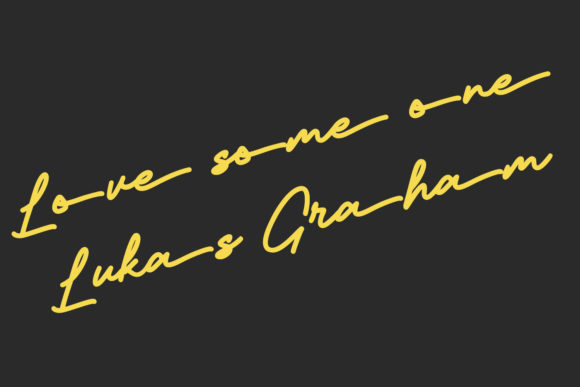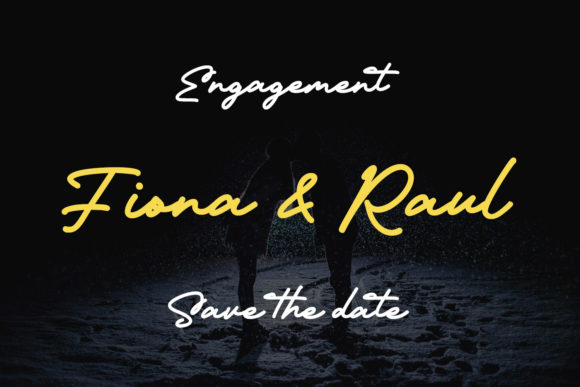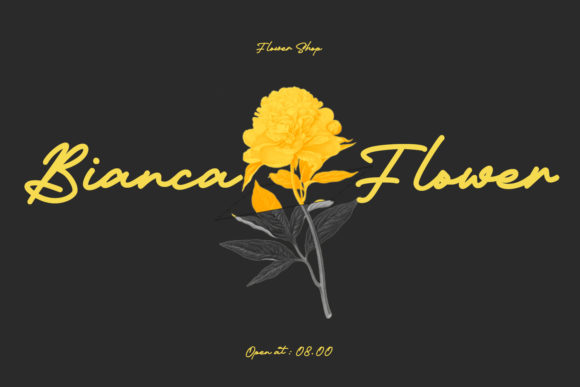
Introduction to Melvio Play Font
Have you ever stared at a blank canvas, waiting for inspiration to strike? It’s that moment when you’re about to embark on a creative project, and you need the perfect font to bring your vision to life. For designers, finding the right font can be a game-changer. It’s what sets your work apart and makes it truly unforgettable.
That’s where the Melvio Play Font comes in – a beautiful, cursive script font that’s sure to elevate your designs. With its medium mono-line strokes, fun characters, and a touch of ligatures and alternates, this font is the perfect addition to any project. Whether you’re working on a design resource or creating something entirely new, the Melvio Play Font is a valuable asset that’s sure to deliver high-quality results.
Key Features of Melvio Play Font
- High-quality, vector-based design, suitable for a variety of creative projects
- Includes transparent background, allowing for seamless integration with any design resource
- Comes in a range of sizes, with scalable resolution for optimal display on various devices
- Unique, playful design with intricate details, making it perfect for projects requiring a creative touch
Honest Review: Melvio Play Font
I recently had the chance to try out the Melvio Play Font, and I must say, it’s been a game-changer for my creative projects. This font is perfect for anyone looking for a fun, playful, and high-quality design resource.
What works well: ✨ The Melvio Play Font is incredibly versatile, and its transparent background makes it easy to use as a overlay or as a standalone design element. I love how it adds a touch of whimsy to my designs. The font is also super easy to download and use, thanks to its free download option.
- Perfect for creative projects, such as social media graphics, web design, and branding materials
- High-quality design resource that’s easy to use and customize
- Transparent background makes it easy to overlay on top of other designs
However, there are a few limitations to keep in mind: ⚠️ The font is only available in a few weights, which can limit its usability for more complex designs. Additionally, the font’s playfulness can sometimes feel overwhelming, so be sure to use it in moderation.
Overall, I’m really impressed with the Melvio Play Font. Its unique design and high-quality construction make it a valuable addition to any designer’s toolkit. Whether you’re working on a fun, lighthearted project or just need a little creative inspiration, this font is definitely worth checking out.
The Melvio Play Font is ideal for a variety of creative projects, including social media graphics, business presentations, and educational materials. Its high-quality design and transparent background make it a versatile and valuable design resource.
Alternatives to Melvio Play Font
The Great Vibes Font is a high-quality, elegant script font suitable for creative projects that require a touch of sophistication. It features a transparent background and is ideal for use in invitations, wedding designs, and other special occasions.
Compared to Melvio Play Font, Great Vibes Font has a more refined and luxurious feel, making it perfect for high-end designs. However, it lacks the playful, handwritten feel of Melvio Play Font.